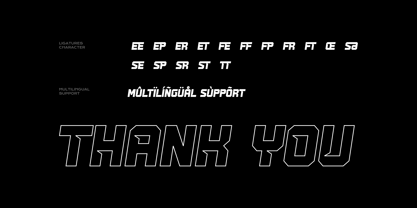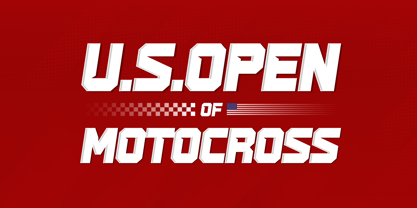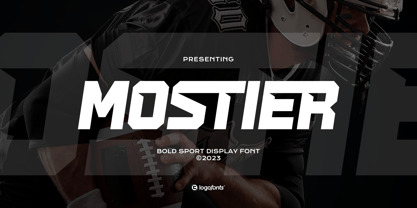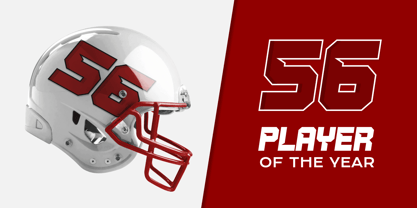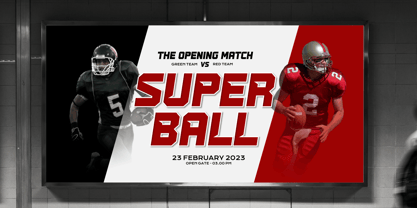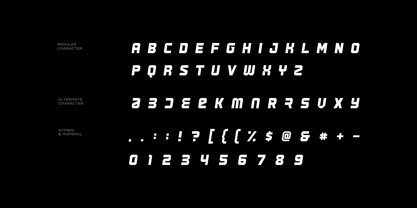
Mostier
by Logofonts
The Mostier Font Family was designed by Anna Safitri and published by Logofonts. Mostier contains 1 styles.
Mostier is a bold and innovative futuristic typeface that redefines the boundaries of modern design. With its clean, angular lines, minimalistic approach, and unique letterforms, this typeface channels the spirit of tomorrow. Perfect for high-tech brands, digital interfaces, and sci-fi-inspired projects, Mostier creates an unmistakable visual identity that feels ahead of its time. Its distinctive style blends geometric precision with dynamic energy, making it a versatile choice for both display typography and branding. Whether you’re designing a cutting-edge website, a futuristic logo, or immersive digital experiences, Mostier brings a sleek, modern edge to any creative project.
Designers: Anna Safitri
Publisher: Logofonts
Foundry: Logofonts
Design Owner: Logofonts